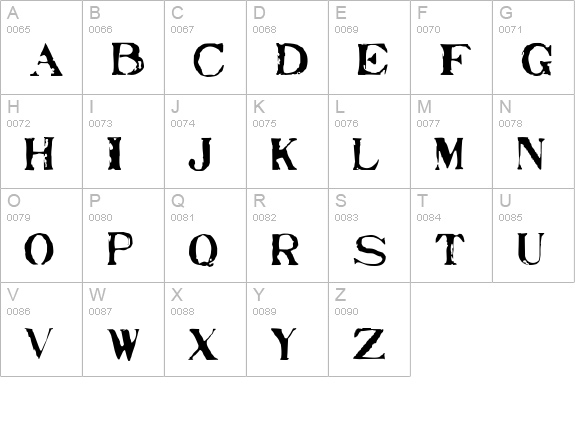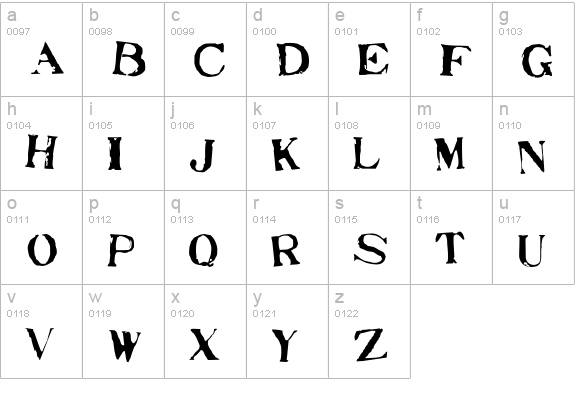
Stampede Font Details
Introducing Stampede, a powerful and captivating font that will leave an indelible mark on any design project. With its bold and dynamic letterforms, Stampede exudes a sense of untamed energy and raw strength, making it perfect for projects that demand attention and command authority. This font's unique combination of sharp edges and flowing curves creates a captivating visual experience, capturing the spirit of a stampede in motion. Each character is meticulously crafted to convey a sense of motion and urgency, making every word written with Stampede come to life. Stampede is not only visually striking, but it also offers a versatile range of weights and styles, allowing you to experiment and find the perfect fit for your design needs. Whether you're creating a powerful logo, designing eye-catching headlines, or crafting impactful posters, Stampede will elevate your work to new heights. And the best part? Stampede is absolutely free! You can easily download this extraordinary font at FontsMarket.com, where it is freely available for you to use in both personal and commercial projects. So, why wait? Unleash the power of Stampede and let your designs roar with confidence and vigor.